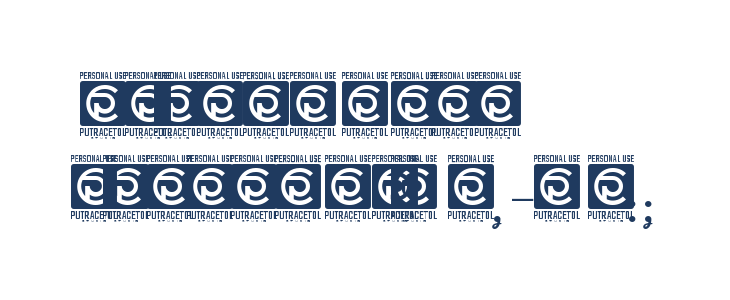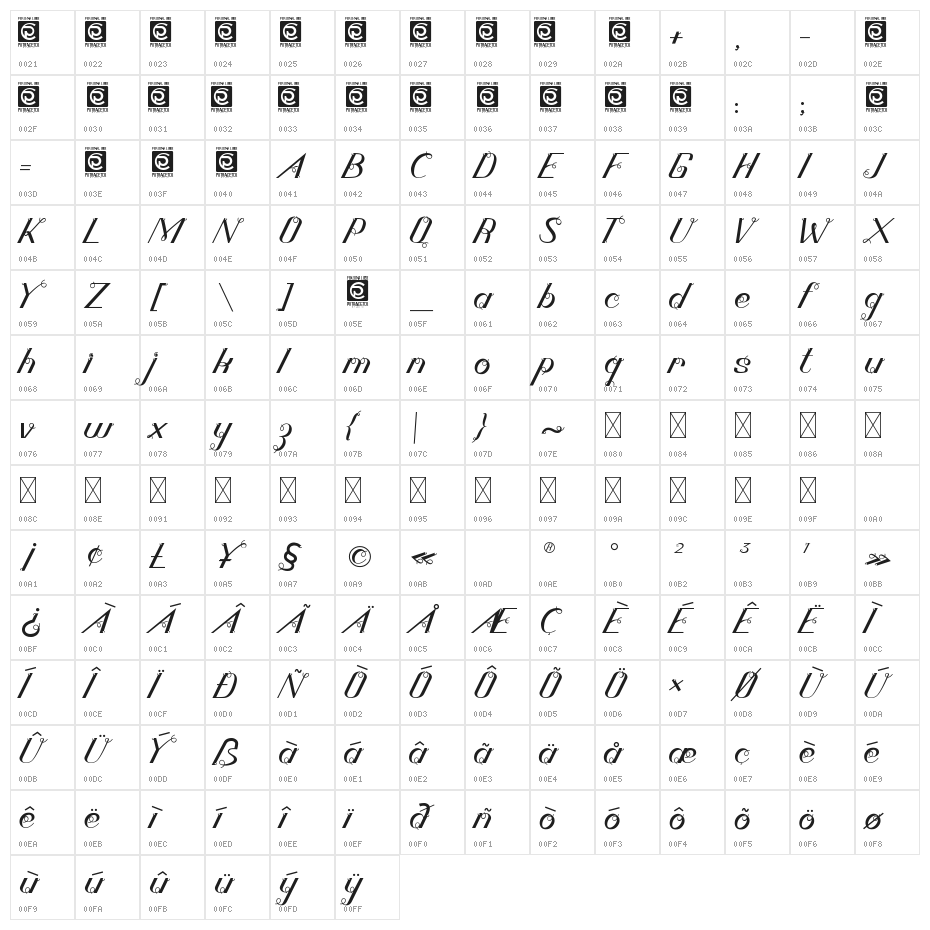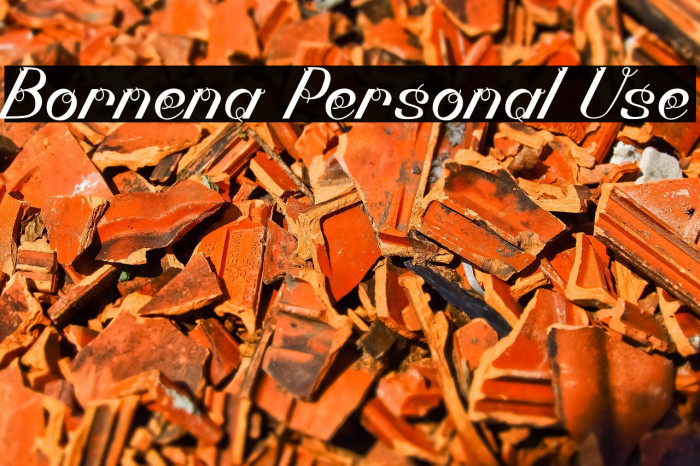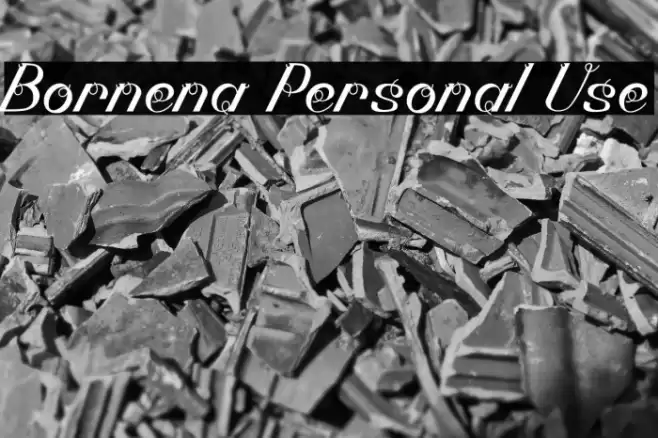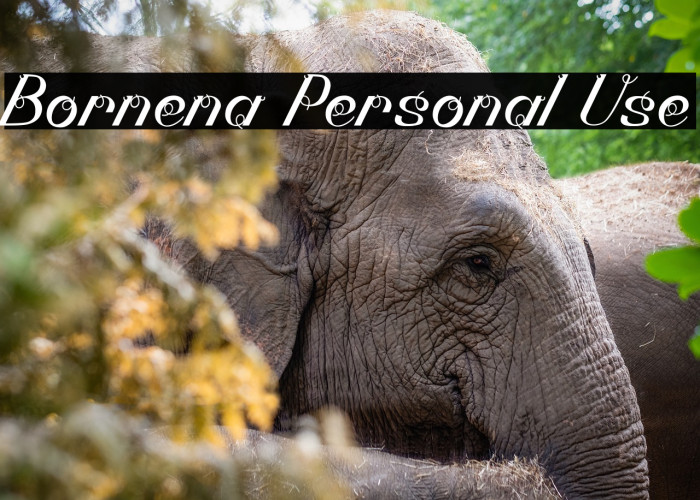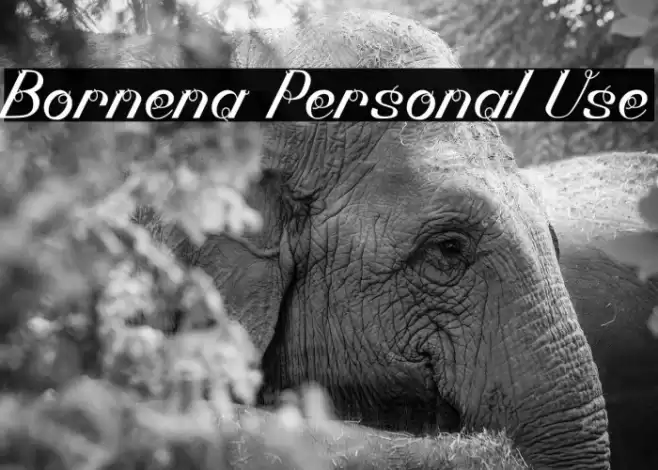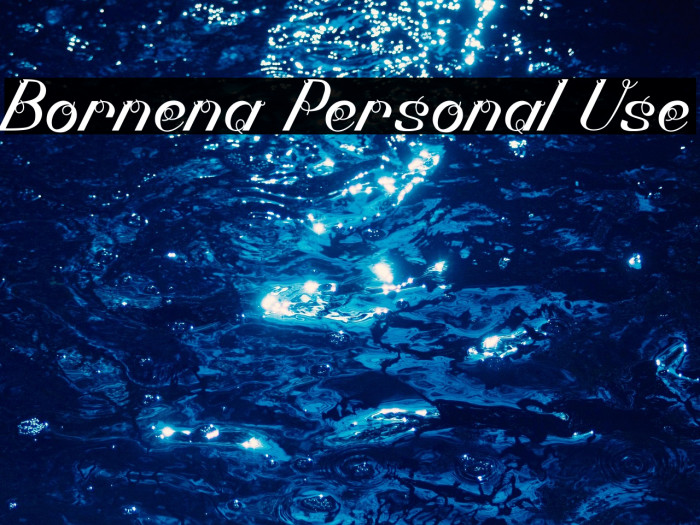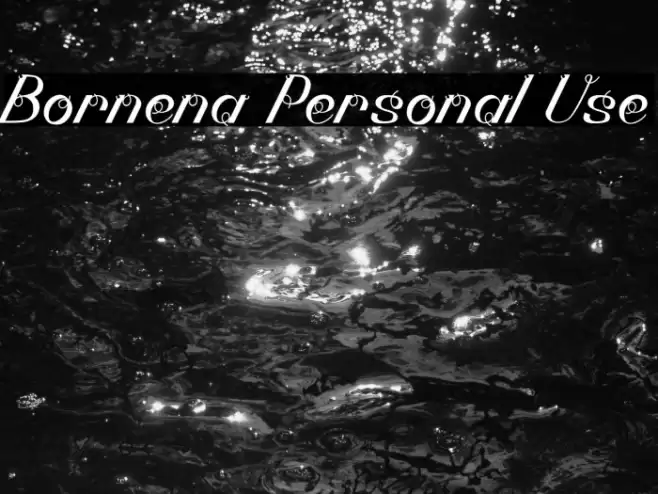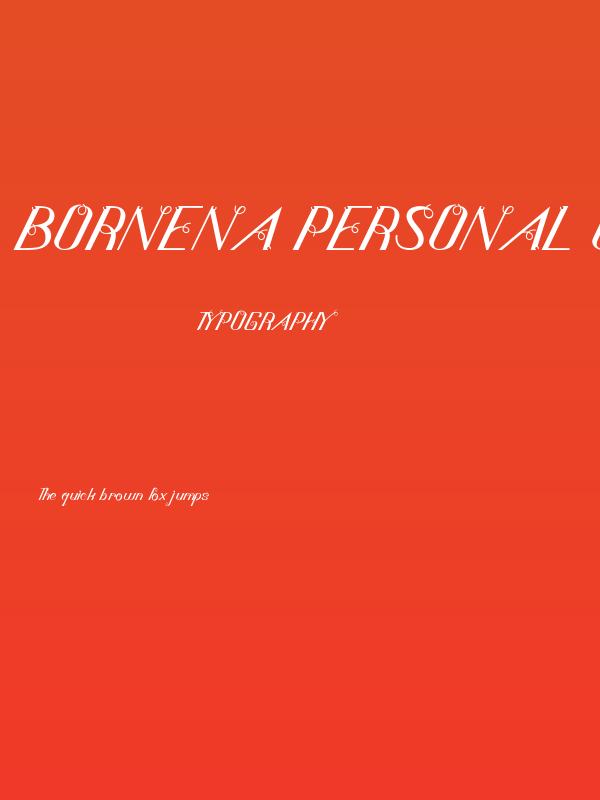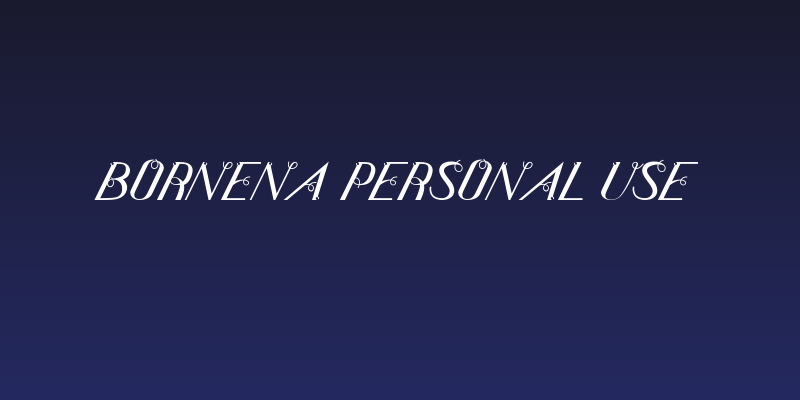
Bornena Personal Use Font
Bornena Personal Use Description
This font features a unique and decorative style with elegant swirls and loops integrated into the letterforms. The uppercase letters are tall and slender, with a distinct flair that adds a touch of sophistication. The lowercase letters maintain a similar aesthetic, with smooth curves and a consistent flow. The numbers and special characters are designed to match the overall theme, providing a cohesive look. This font's artistic elements make it suitable for creative and expressive projects, where a touch of elegance is desired.
| Proposed Projects | Ideal for invitations, greeting cards, branding, and artistic posters. |